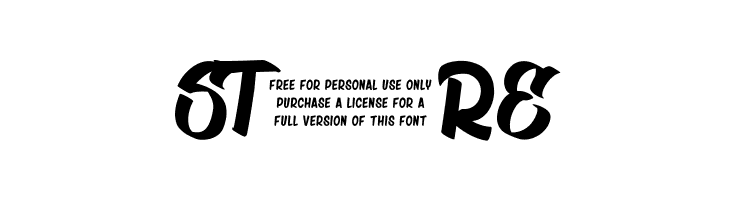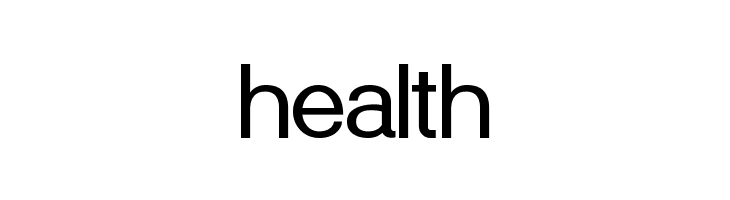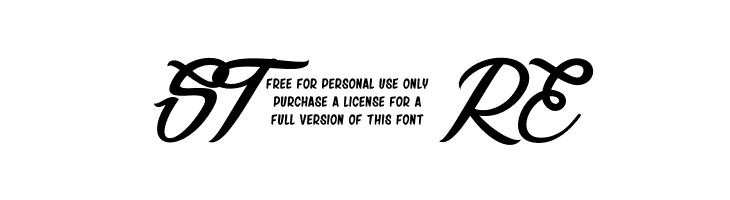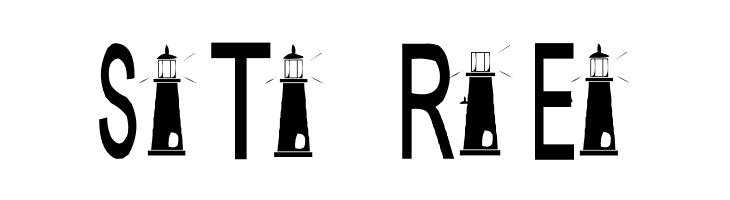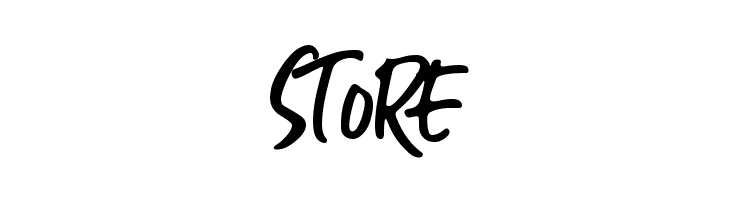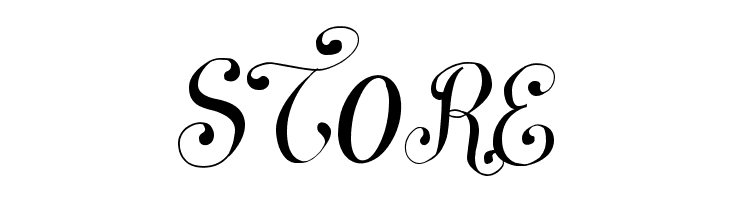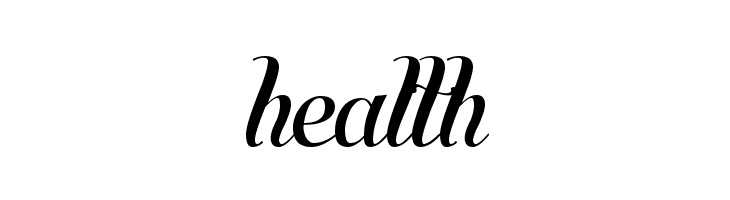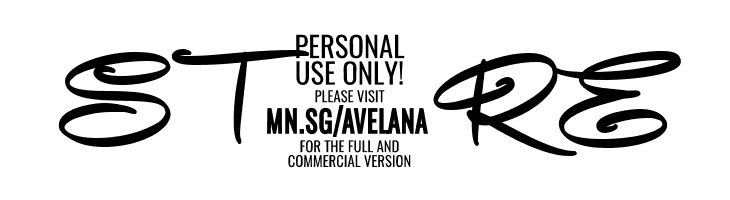
A bold, dynamic script font with a brush-like, artistic style.
A modern sans-serif font with clean lines and geometric shapes.
A flowing, cursive script font with elegant, interconnected letters.
A decorative font with a lighthouse motif integrated into each letter, ideal for nautical themes.
An elegant script font with intricate swirls and decorative flourishes.
A bold, expressive script font with a dynamic and artistic style.
An elegant, decorative script font with thin, flowing lines and intricate swirls.
A bold, flowing script font with smooth, connected strokes.